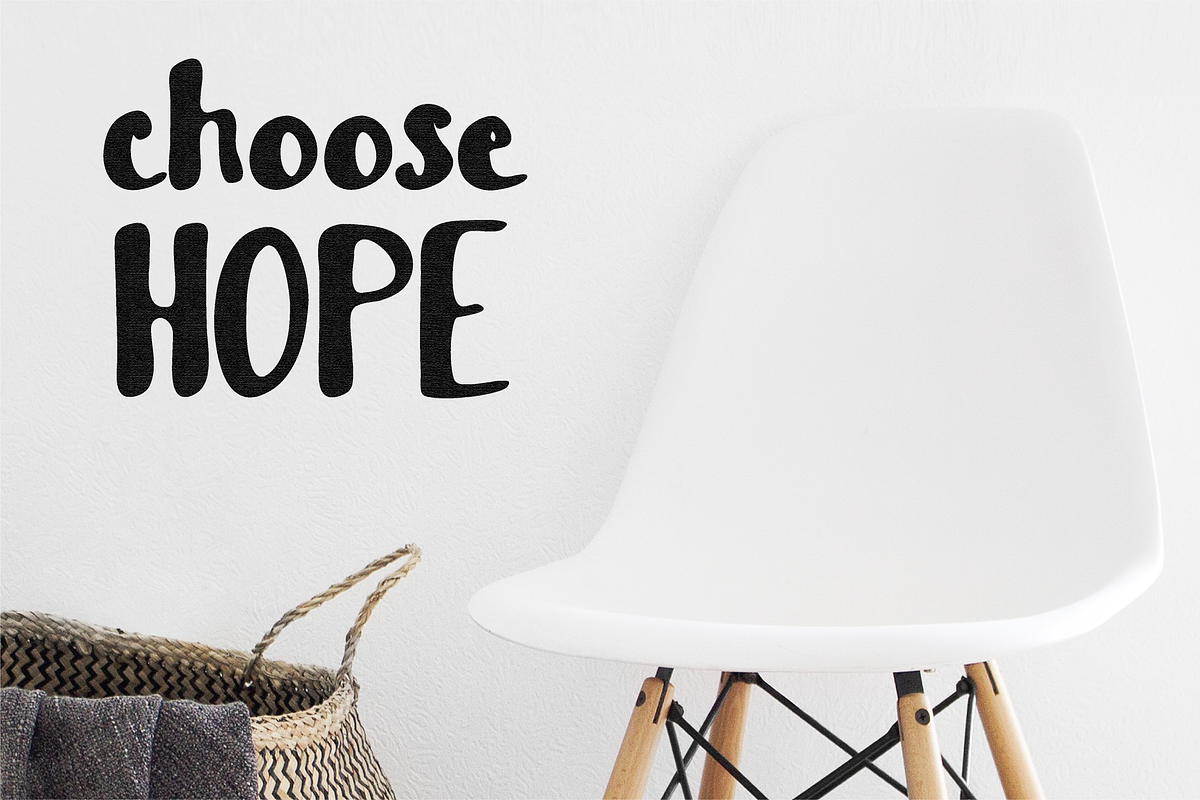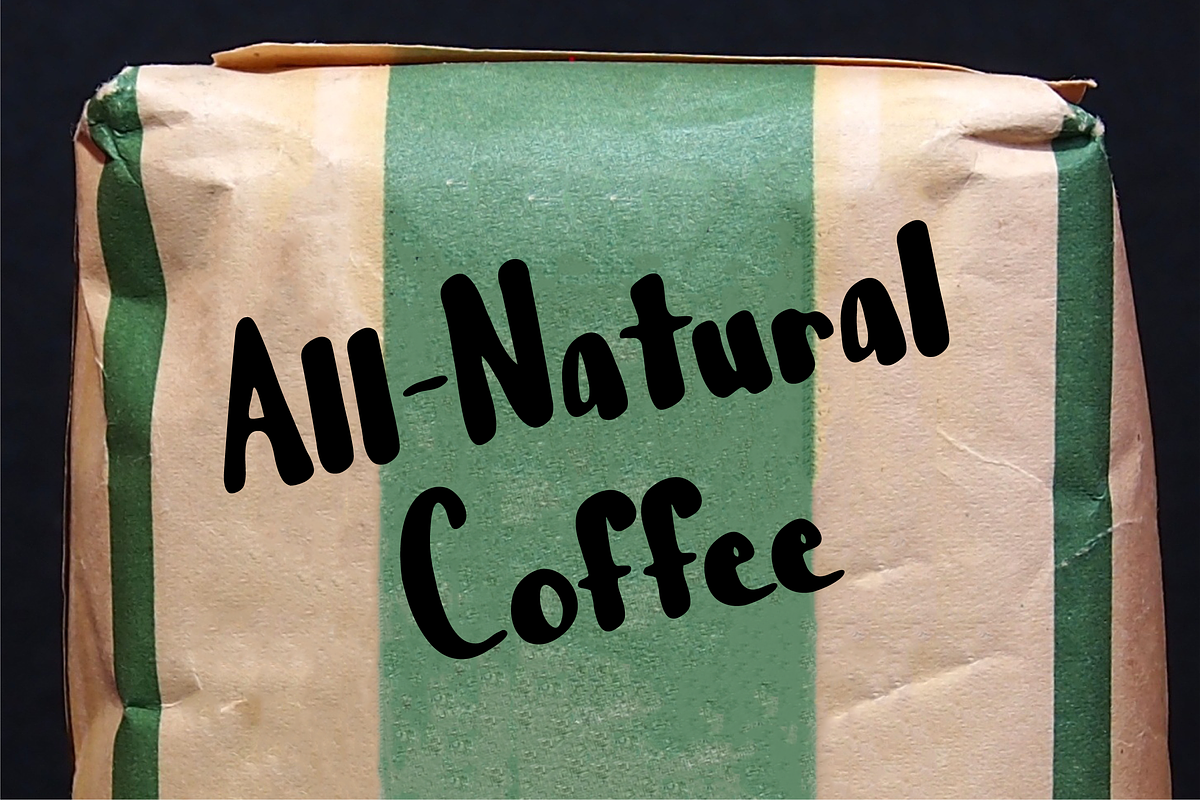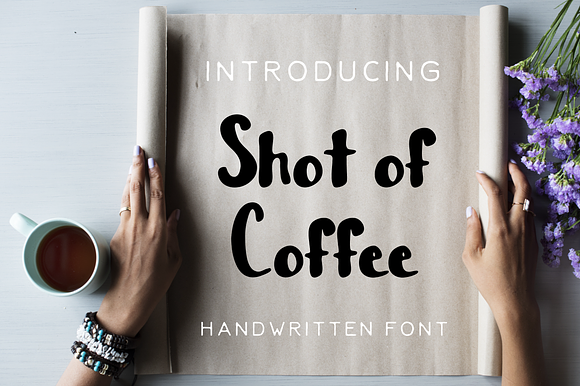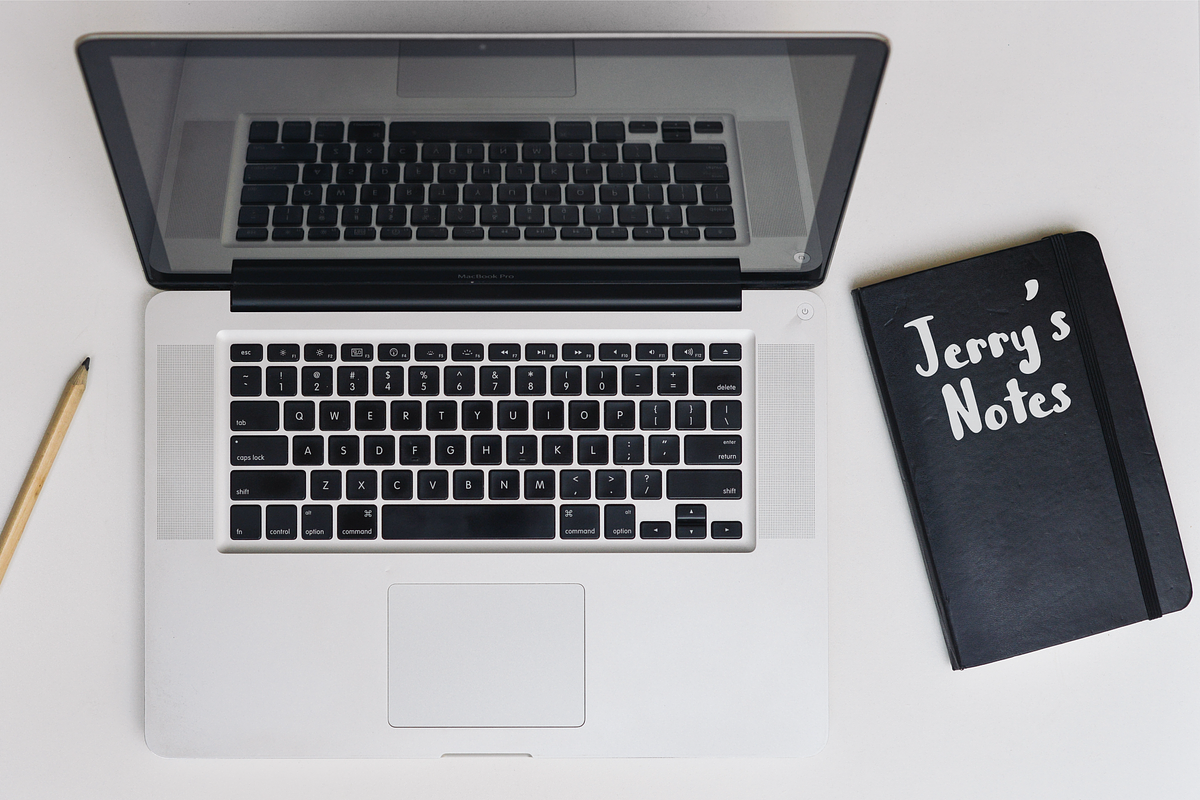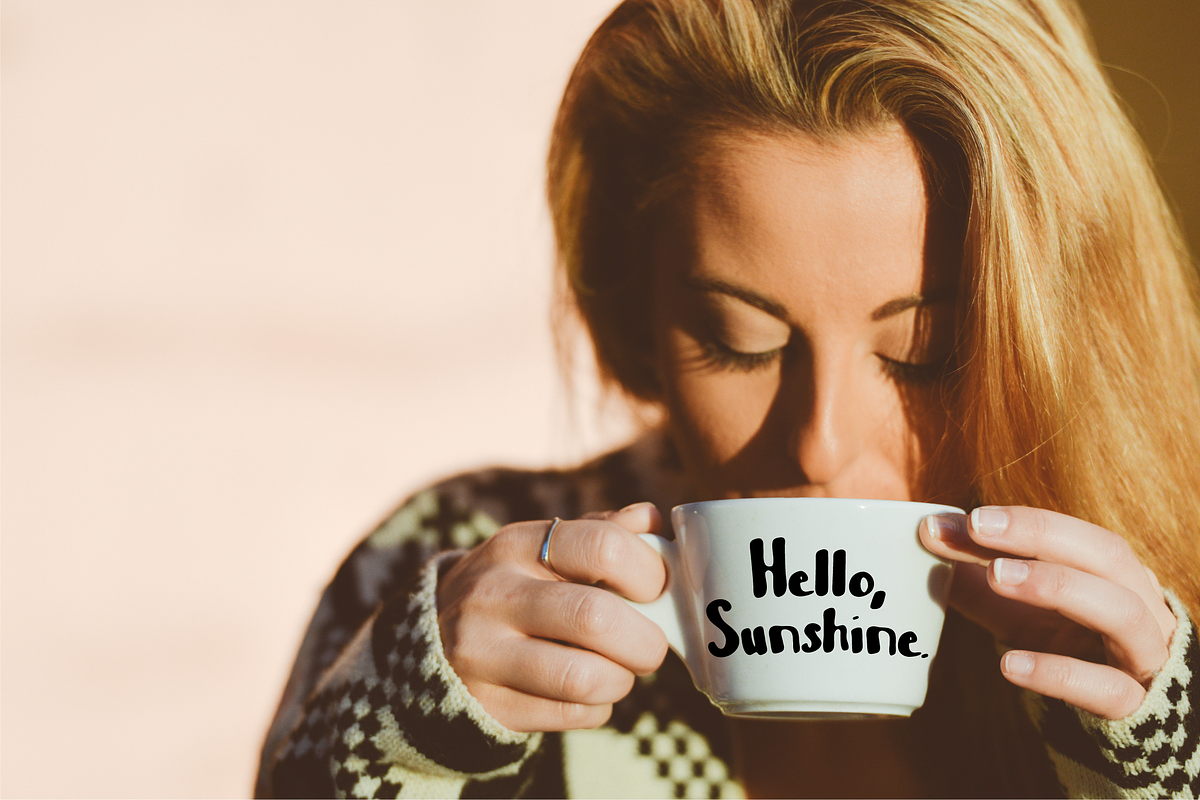
Shot of Coffee Font
This gorgeous handwritten font is perfect for display headlines and product design. Shot of Coffee is designed to be smooth as if a well-inked pen or brush was set to paper. Its loose style allows a natural look for branding, decals, and personalized gifts.